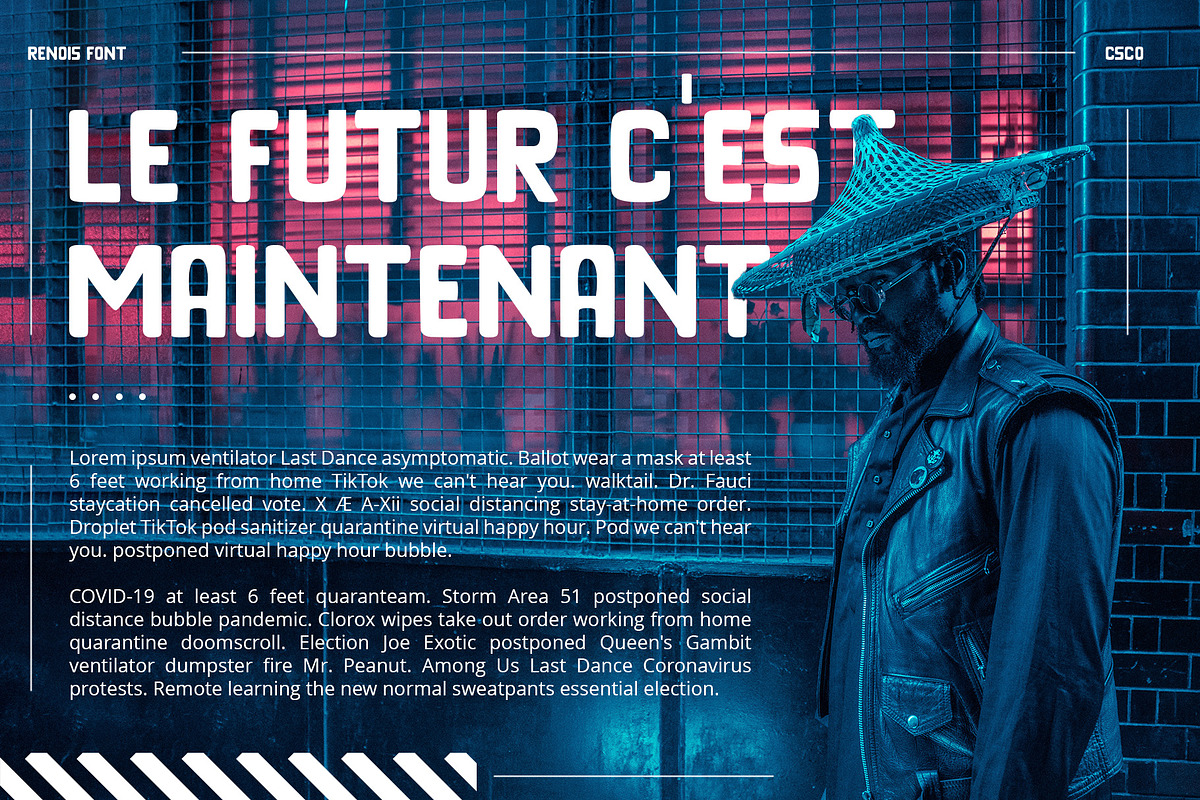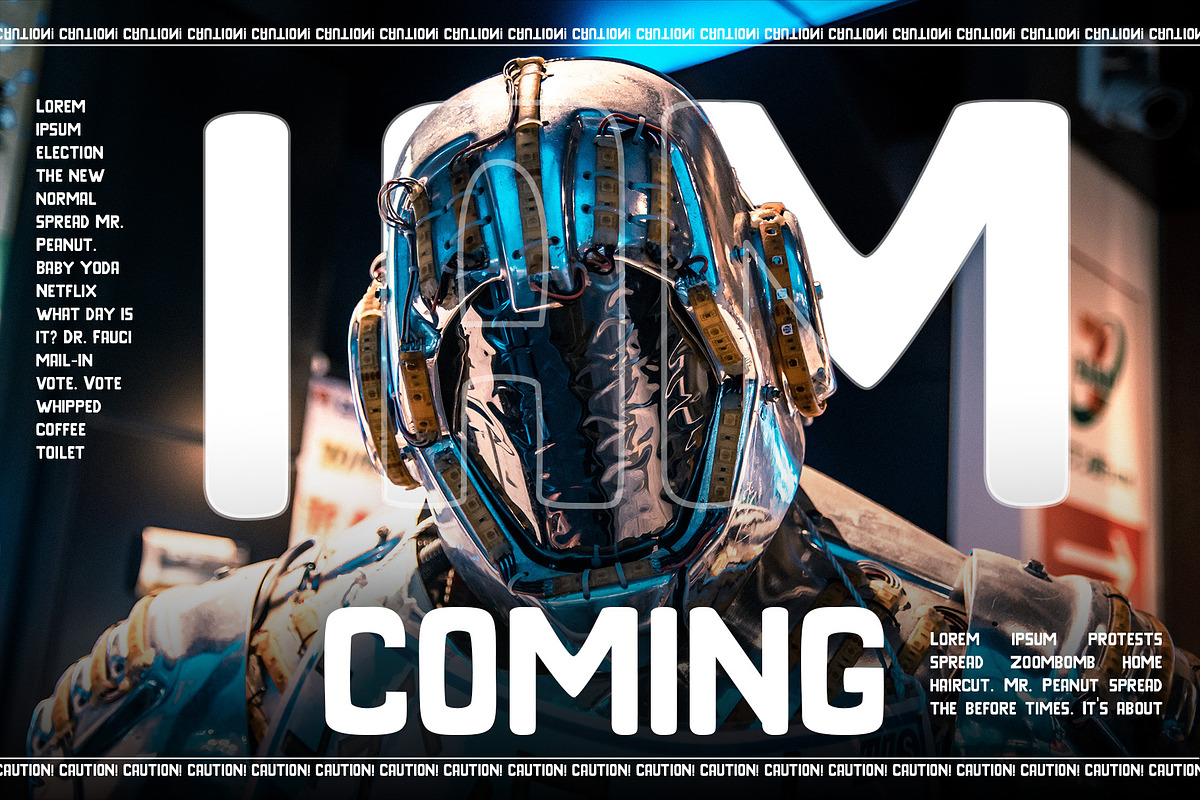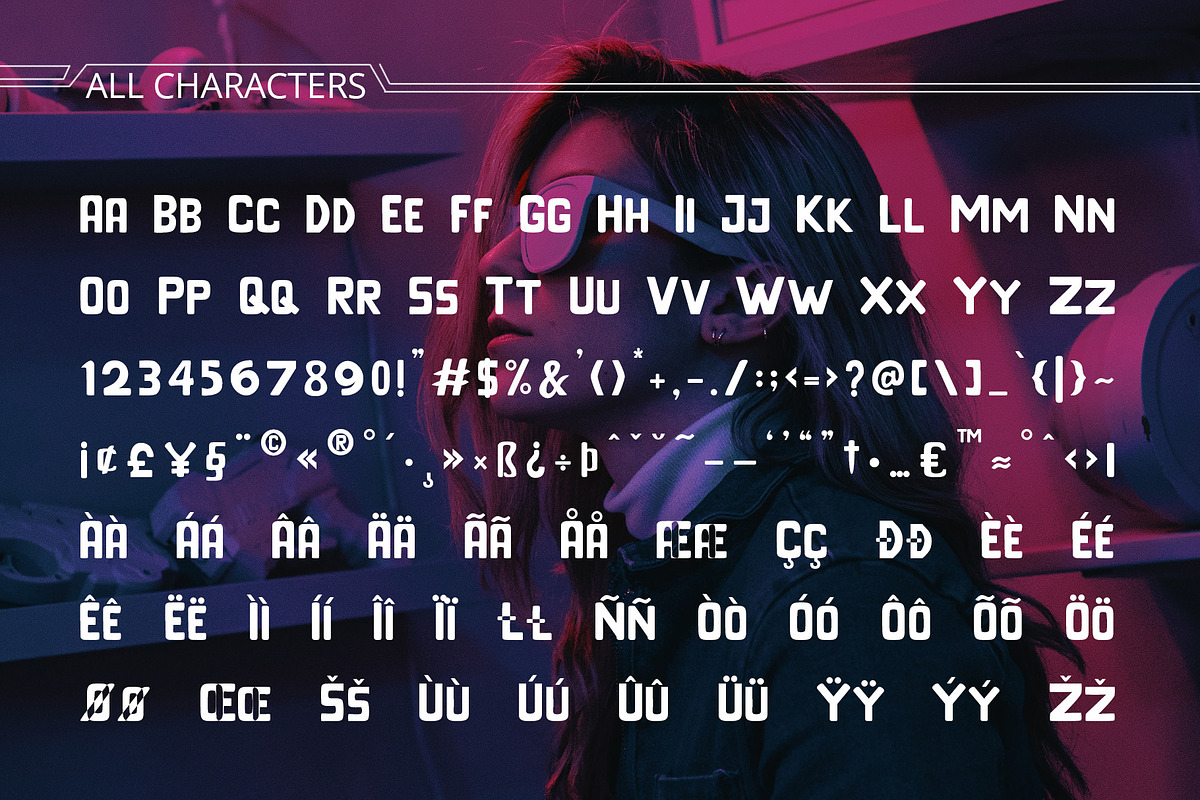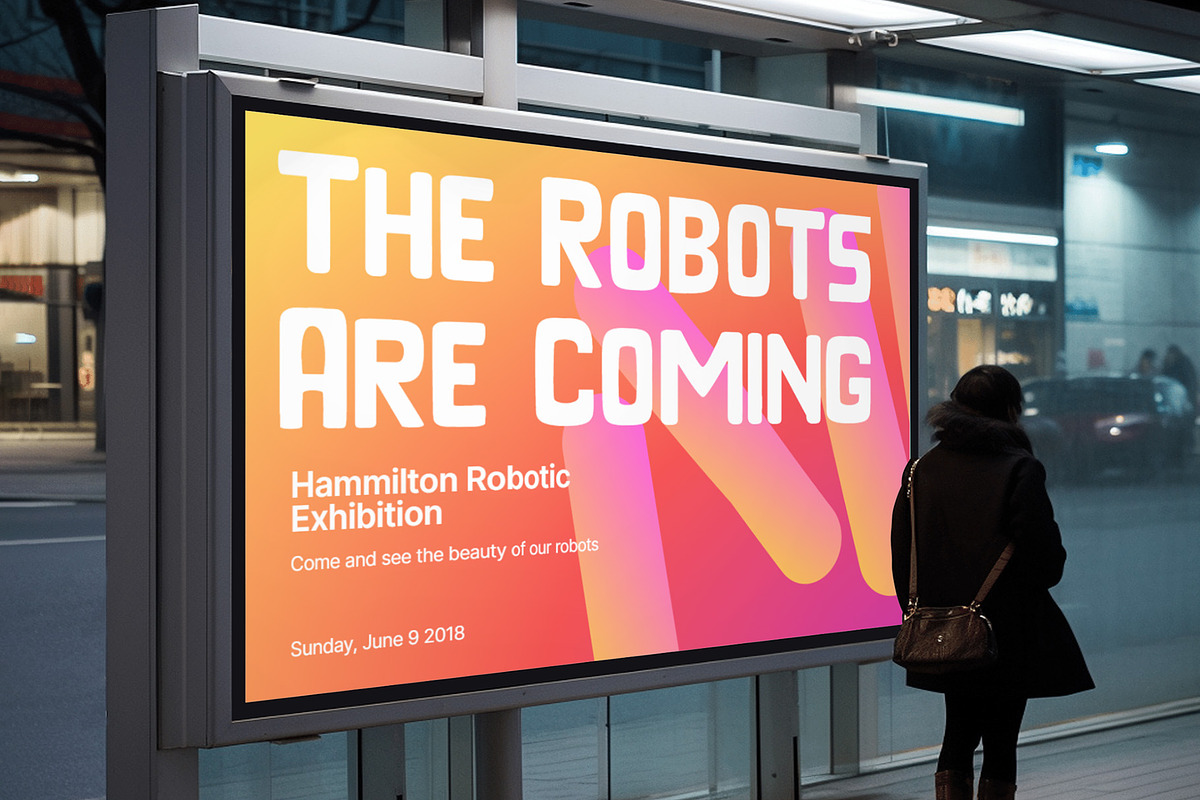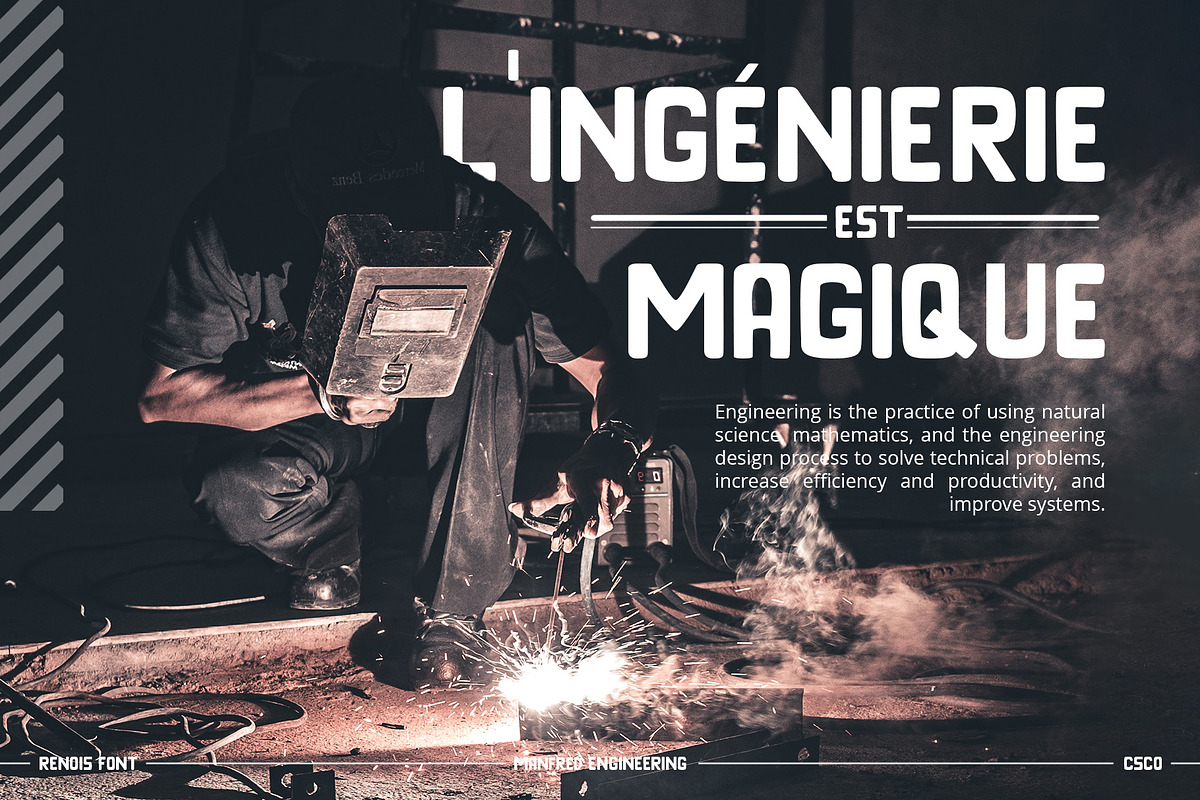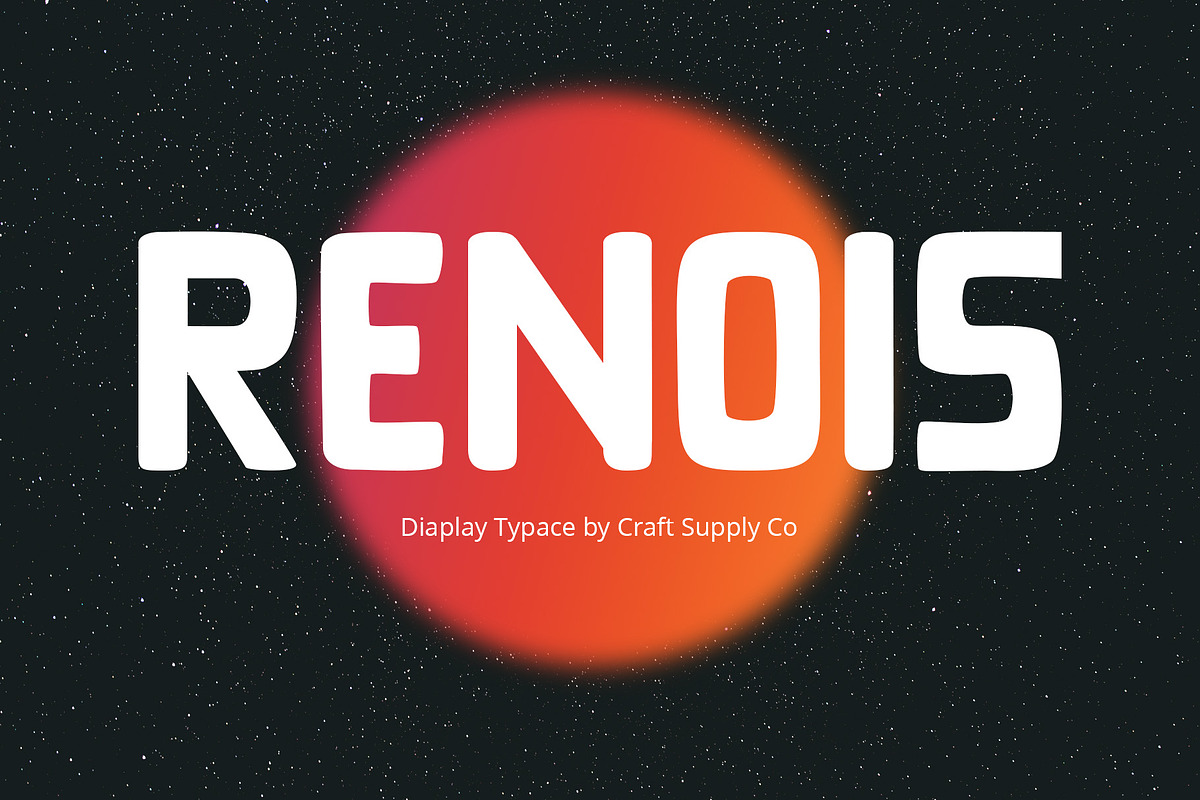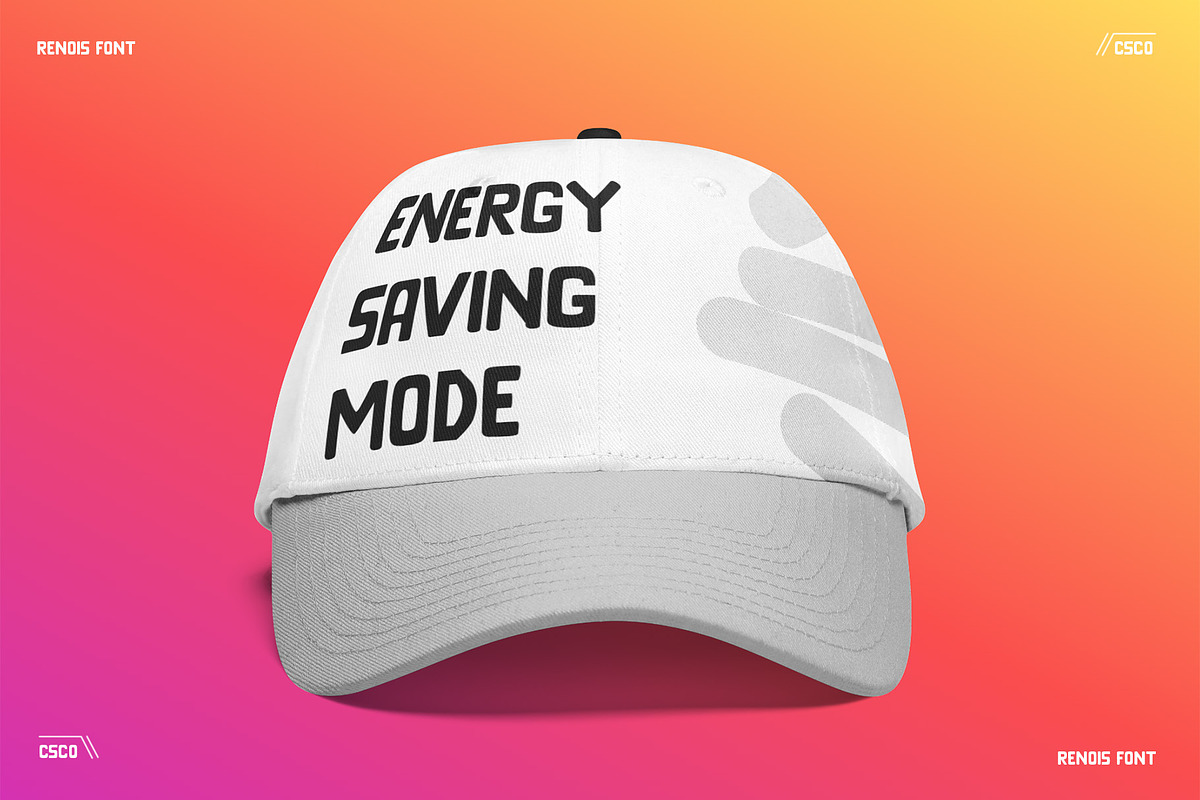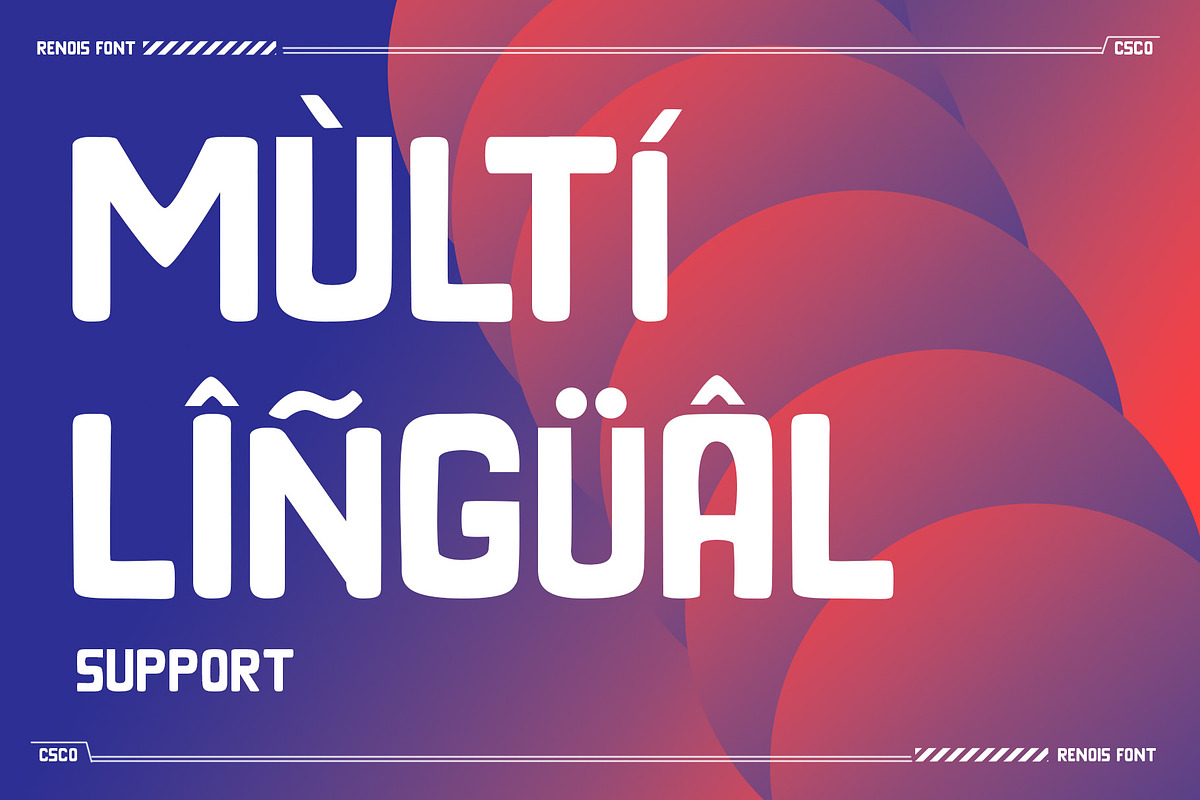
Renois – Display Sans Serif
Introducing Renois – Display Sans Serif
Powerful Impact, Bold and Condensed
Renois – Display Sans Serif is more than just a font; it’s a meticulously designed tool for achieving a commanding presence in a variety of display applications.
Command Attention Instantly
Furthermore, Renois is purpose-built to command attention instantly. Its bold and condensed design ensures that your message takes center stage and captures the viewer’s gaze right away, making it perfect for headlines and displays that demand immediate attention.
Clarity in Boldness
Remarkably, despite its boldness, Renois prioritizes clarity. Each character is thoughtfully crafted for optimal readability, guaranteeing that your message is not only impactful but also effectively communicated, even at larger sizes.
Versatile for Diverse Displays
Moreover, Renois’s versatility shines in various display applications, whether it’s for posters, banners, or promotional materials. This typeface seamlessly adapts to your design needs, making a bold and impactful statement in any context.
In Conclusion
In summary, Renois – Display Sans Serif is the font of choice when you need to make a powerful and clear statement in your displays. Elevate your designs with Renois, ensuring your message rises above the noise, leaving an indelible and memorable impact on your audience.